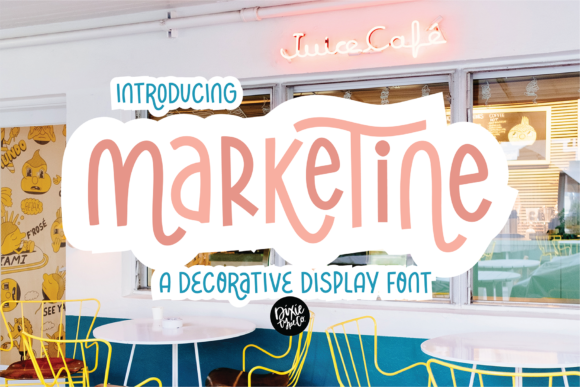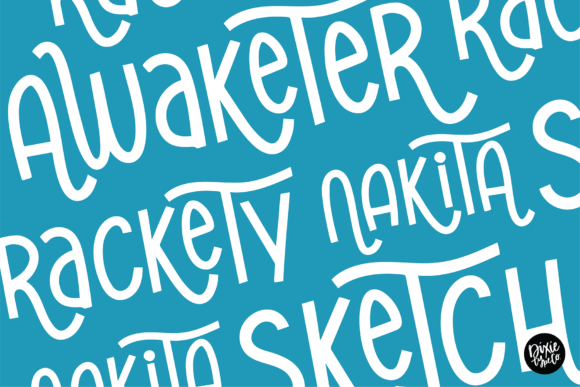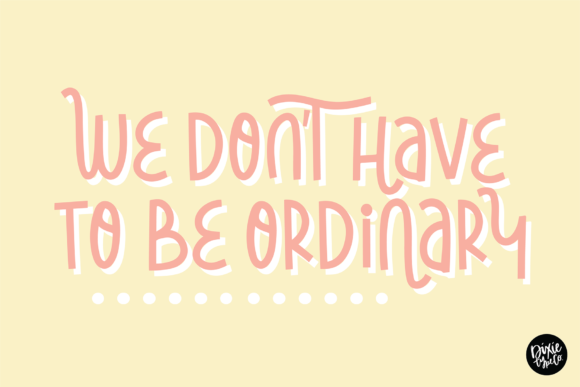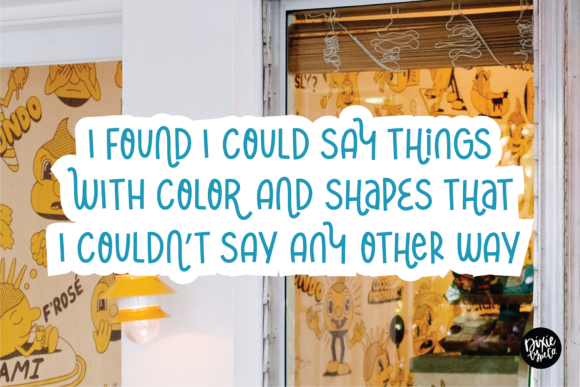
Marketine Font: A Unique Display Font for Playful Designs & Branding!
About the Marketine Font
Crafted with precision, the Marketine Font is ready to bring your ideas to life. Marketine is a unique and interesting display font. Incredibly versatile, this font will fit a wide pool of designs.
Fall in love with its incredibly stylish look and use it to create spectacular designs!
Marketine’s bold, slightly quirky personality makes it ideal for headlines, logos, short impactful taglines, and posters. Its strong forms also lend themselves well to packaging design, particularly for products aiming for a modern or slightly rebellious feel. However, its decorative nature makes it less suitable for body text or UI elements where readability is paramount. Extended use could hinder legibility.
Consider pairing Marketine with a clean sans-serif like Open Sans for a balanced contrast, or a classic serif such as Garamond for a more traditional yet still striking combination. For a more playful approach, a handwritten script font could add an interesting textural element. Avoid pairing it with other heavily ornamented fonts as this would create visual clutter.
Marketine’s overall aesthetic is best described as modern and bold with a touch of playfulness; it projects confidence and a sense of youthful energy. This makes it a strong choice for brands targeting a younger demographic or those looking to convey a vibrant, distinctive brand identity.
Marketine Font Usage Examples
Marketine Font Example